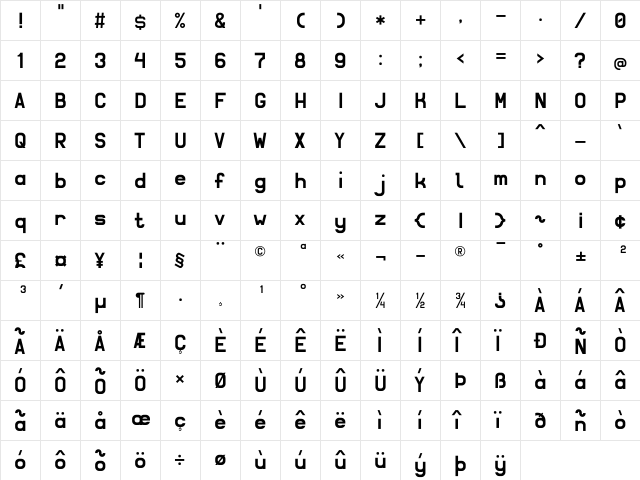
SolidSans Regular
Design Context for SolidSans Typeface
SolidSans offers clean, dependable letterforms without strong stylistic allegiance, making it a practical choice for designers who need flexibility.
Pro Tip: Pair SolidSans with a font of contrasting weight or personality to build a more expressive typographic hierarchy.